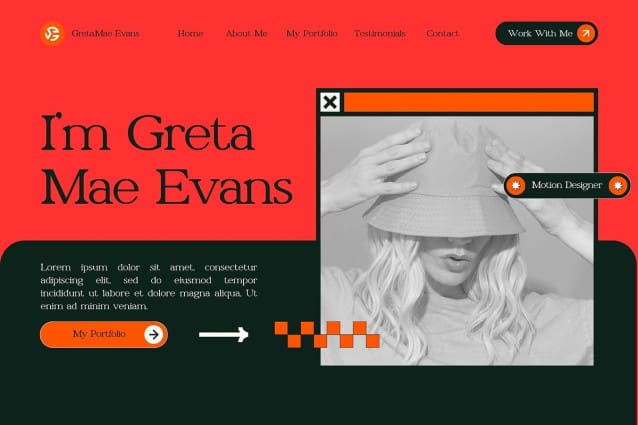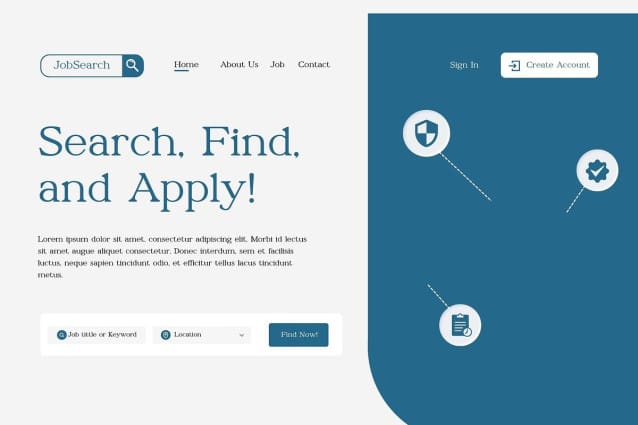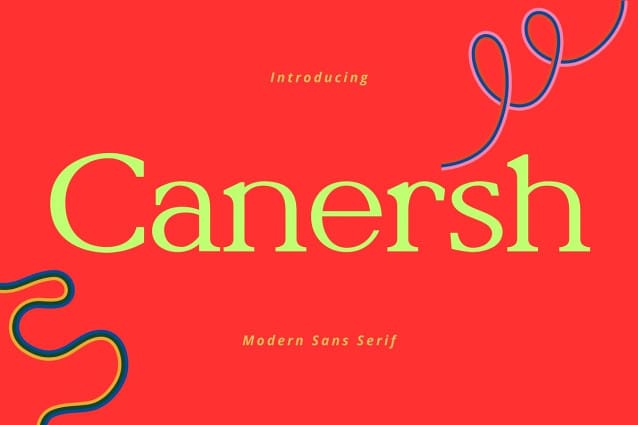
Canersh Font
Canersh Font a series of sophisticated fonts designed to enhance your creative projects. Immerse yourself in the charm of meticulously crafted letters that create the perfect balance between modernity and luxury. Our commitment to precision is evident in the creation of each letter, prioritizing impeccable design to ensure perfect typographic expression.